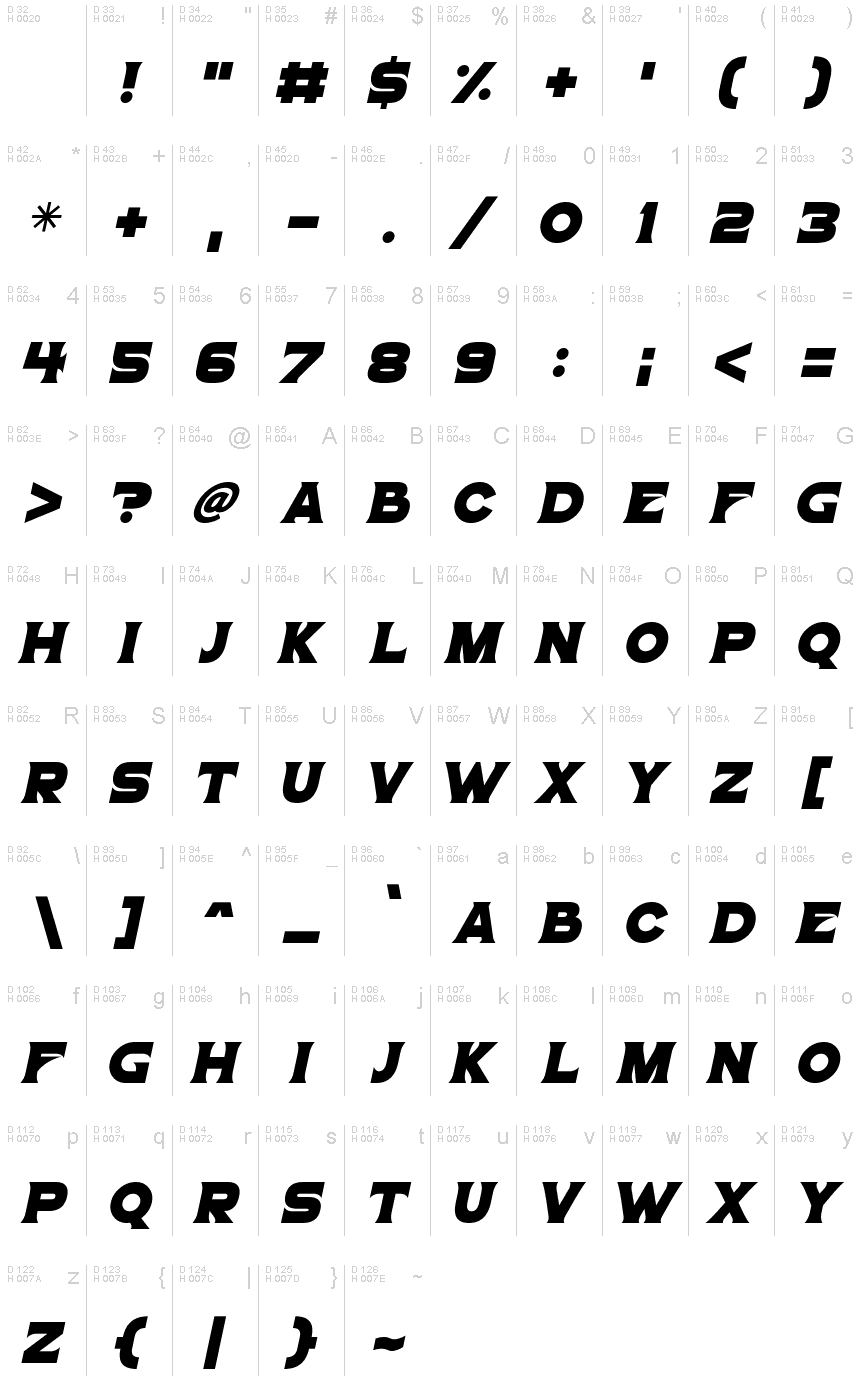
Ghost Stories Deluxe Italic
Ghost Stories Deluxe Italic, a creation by font designer Hawtpixel, is an extra-bold serif font with spiky curves and a distinct horror flavor. Its expanded width adds a unique touch to its already captivating style.
This font is perfect for projects that require a bold and attention-grabbing typeface, such as book covers for scary stories or Halloween-themed designs. Ghost Stories Deluxe Italic can also add a touch of mystery and intrigue to general fiction works, making it suitable for various creative projects where a haunting atmosphere is desired.